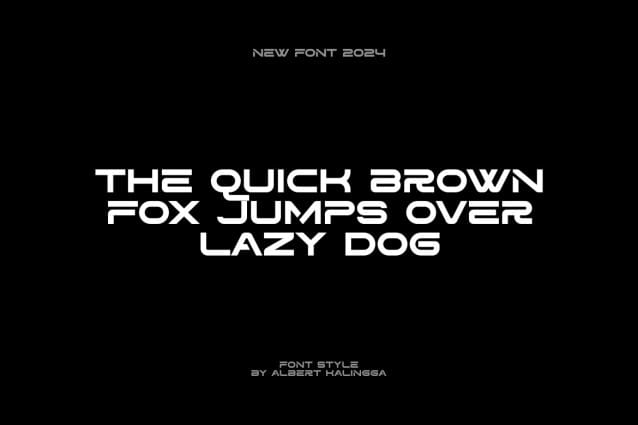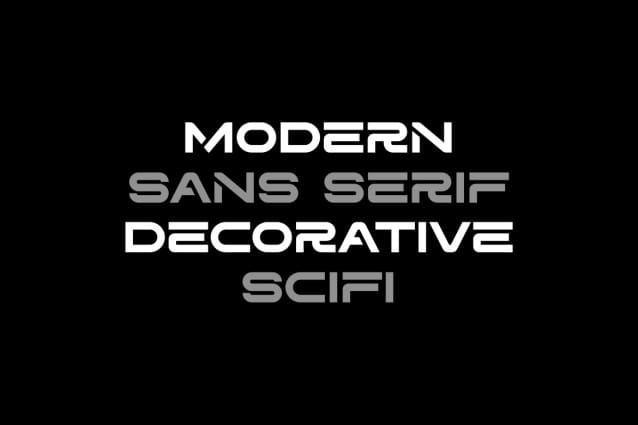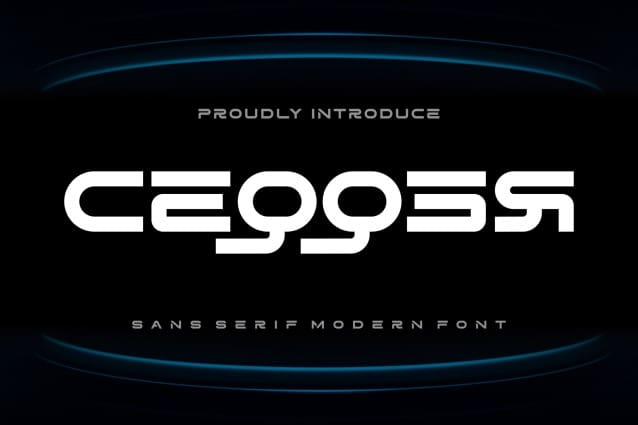
Ceqqer Font
Ceqqer Font – Modern Font is a bold and authentic display font. The font is suitable for any branding projects such as Logo, esports, etc. It looks outstanding in a wide range of contexts